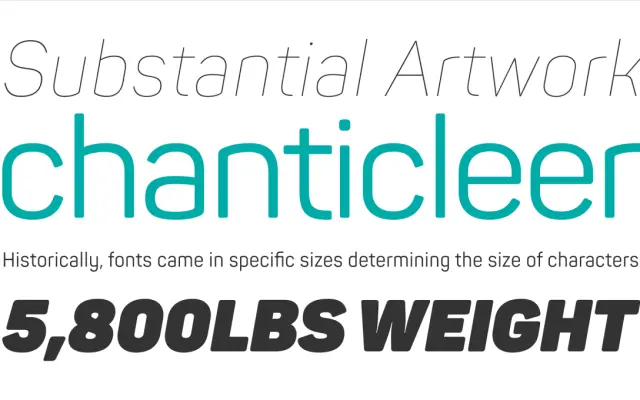
Panton
Fontfabric · Ivan Petrov, Svetoslav Simov · 2015
A softened geometric sans from Fontfabric spanning 54 styles across standard, narrow and icon subfamilies, with broad multilingual support.
Designed by Ivan Petrov and Svetoslav Simov and released in 2015, Panton applies gently softened geometric forms across ten weights from Thin to Fat, each with a matching italic. The Narrow subfamily mirrors nine of those weights for tighter settings, and a suite of 16 icon fonts rounds out the family. Version 3.0 added Bulgarian localisation, tabular figures and case-sensitive punctuation, making it a practical choice for branding, editorial and screen work across multiple languages.
Panton draws on classic grotesque traditions while applying softened geometric forms throughout, placing it firmly in the geometric sans category with humanist warmth around the terminals.